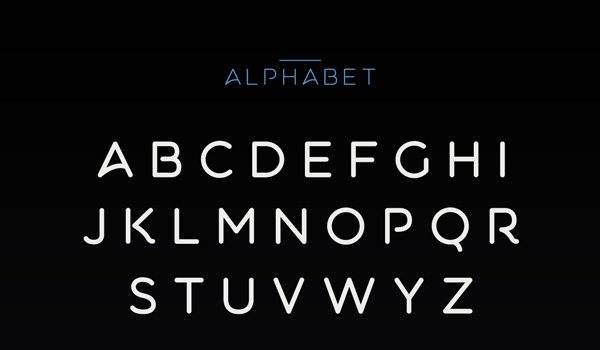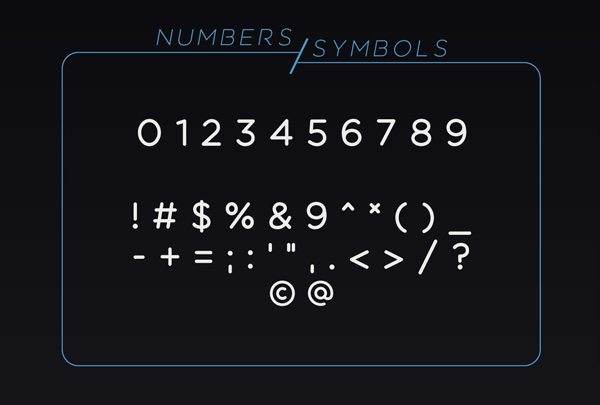
Aquatico font
Free Font Of The Day #209 – Aquatico Font
Aquatico Font
The font is a new geometric rounded typeface inspired by the sea creatures of the lowest point on earth.This font comes with 4 styles: ( Regular, Oblique, Light, Light Oblique). Designed by Andrew Herndon.